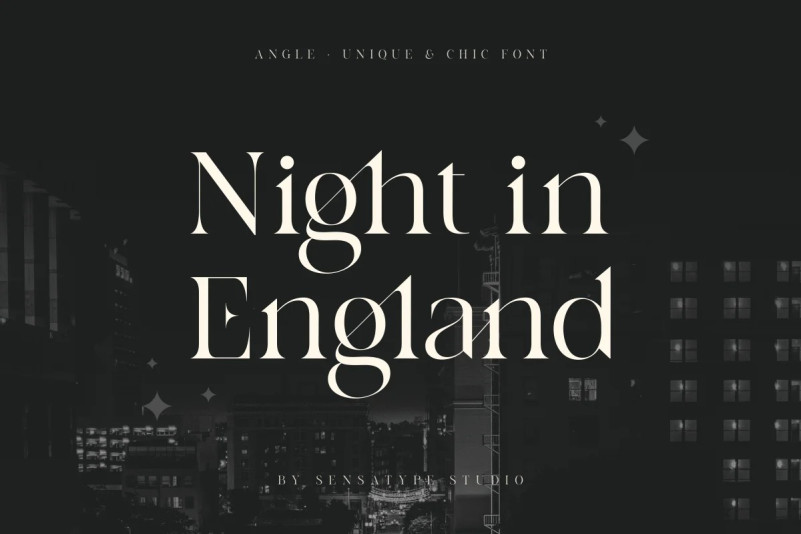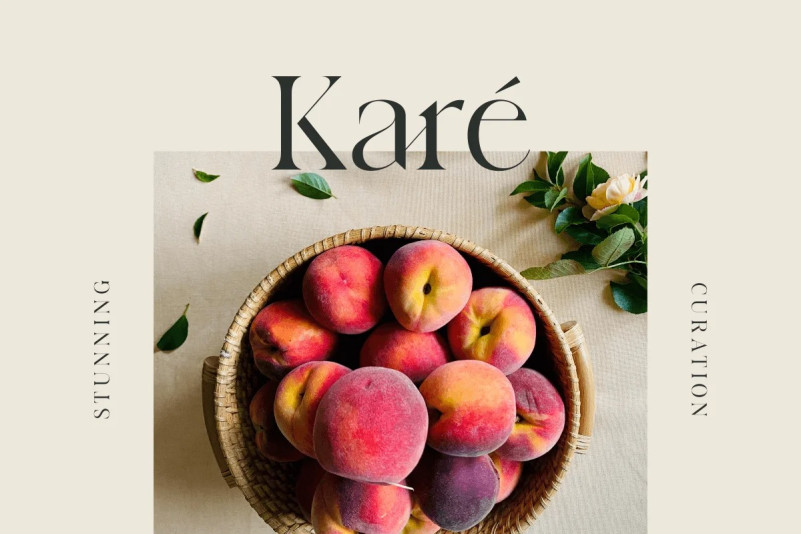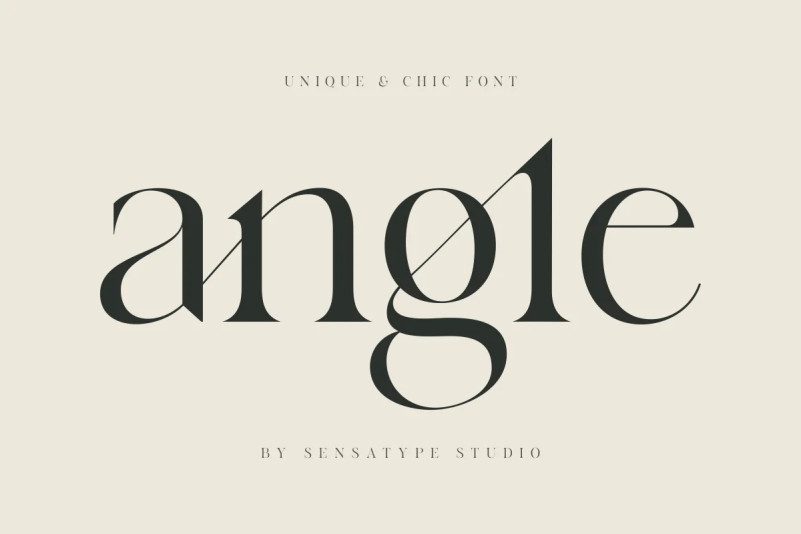
Angle Font
Grab our new font, Angle Serif Font is a stylish serif font that has elegant look. It is perfect for use in pretty card designs like greeting, business, and invitation cards. This amazing font is best for logo designs of many official industries and official companies designs. It comes in light, medium, and bold design purposes. This font has many advanced styles that increase the uniqueness of your projects.